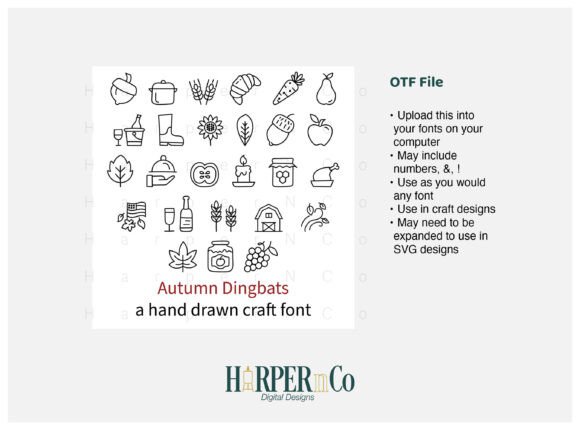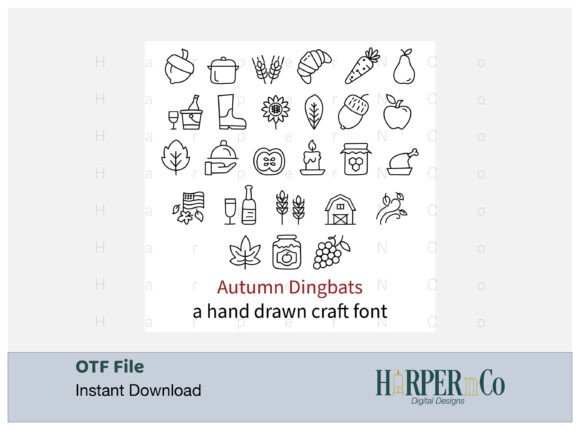
Introducing Autumn Dingbats Font: The Perfect Addition to Your Crafting Arsenal
Are you a crafter or designer looking for a unique and fun way to add a personal touch to your autumn and Thanksgiving projects? Look no further than the Autumn Dingbats Font! This super cute hand-drawn dingbat font is perfect for customizing all your crafts, from custom shirts and keychains to gifts, tags, and bags.
What is a Dingbat Font?
For those who may be new to the world of crafting and design, a dingbat font is a type of font that features graphical symbols, shapes, and illustrations rather than traditional letters and numbers. Dingbat fonts are often used to add visual interest and personality to projects, and can be used to create everything from custom signs and banners to personalized gifts and decorations.
Why You’ll Love Autumn Dingbats Font
The Autumn Dingbats Font is a standout addition to any crafter’s or designer’s toolkit. With its adorable hand-drawn illustrations, this font is perfect for anyone looking to add a touch of autumnal charm to their projects. The font features a wide range of illustrations, including leaves, acorns, pumpkins, and other seasonal icons, making it the perfect choice for autumn and Thanksgiving craft projects.
One of the best things about the Autumn Dingbats Font is its versatility. With this font, you can create a wide range of projects, from simple and elegant to complex and elaborate. Here are just a few ideas to get you started:
- Custom shirts and hoodies for autumn and Thanksgiving
- Personalized keychains and gift tags
- Decorative banners and garlands for your home or office
- Custom gifts, such as mugs, water bottles, and tote bags
- Unique and personalized stationery and invitations
Why Choose Autumn Dingbats Font?
So why choose the Autumn Dingbats Font over other dingbat fonts on the market? Here are just a few reasons why this font stands out:
- High-quality illustrations: The Autumn Dingbats Font features high-quality, hand-drawn illustrations that are sure to add a touch of personality to your projects.
- Versatility: The Autumn Dingbats Font can be used for a wide range of projects, from simple crafts to complex designs.
- Seasonal theme: The autumnal theme of this font makes it the perfect choice for autumn and Thanksgiving craft projects.
Tips for Using Autumn Dingbats Font
Here are a few tips for getting the most out of the Autumn Dingbats Font:
- Experiment with different colors and combinations: Don’t be afraid to try out different colors and combinations of illustrations to create unique and eye-catching projects.
- Use it in combination with other fonts: The Autumn Dingbats Font pairs well with a wide range of other fonts, so don’t be afraid to get creative and experiment with different combinations.
- Make it your own: One of the best things about the Autumn Dingbats Font is its versatility, so don’t be afraid to put your own spin on things and make it your own.
| Font Name | Autumn Dingbats Font |
| Author | HarperNCo |
If you’re looking for a fun and unique way to add a personal touch to your autumn and Thanksgiving craft projects, look no further than the Autumn Dingbats Font. With its adorable hand-drawn illustrations and versatility, this font is sure to become a staple in your crafting arsenal. So why wait? Download the Autumn Dingbats Font today and start creating!